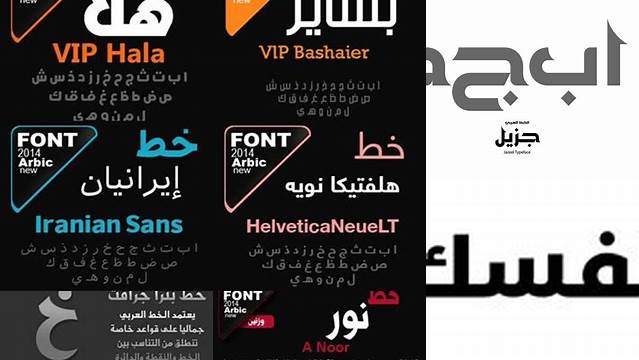
Free Arabic Bold Fonts: Download & Enhance Your Designs
Hey there, design enthusiasts! 👋 Looking for the perfect font traditional Arabic bold free download to spice up your projects? You've come to the right place! Arabic calligraphy and typography are incredibly rich and beautiful, and the right font can make your designs truly pop. In this article, we'll dive into the world of font traditional Arabic bold free download options, exploring their nuances, how to get them, and how to use them effectively. Whether you're creating stunning visuals for your business, personal projects, or just exploring your creative side, having access to quality fonts is a must. We'll cover everything from the best websites to download these fonts to practical tips on how to integrate them seamlessly into your designs. So, grab a cup of coffee, get comfy, and let's embark on this font-tastic journey together!
H2: Discovering the Beauty of Arabic Bold Fonts
Alright, let's talk about what makes font traditional Arabic bold free download so special. Arabic fonts, with their elegant curves, flowing lines, and intricate details, are a visual treat. Bold fonts, in particular, carry a certain weight and authority, making them ideal for headlines, titles, and anywhere you want to grab attention. They have a strong visual impact, making them perfect for conveying messages with confidence and clarity. The bold style ensures readability even at smaller sizes, making them versatile for both print and digital applications. Font traditional Arabic bold free download options often include various styles, from classic to modern, allowing for a wide range of creative expression. You'll find everything from fonts that mimic traditional calligraphy to those with a more contemporary feel. Choosing the right bold font can set the tone for your entire design, evoking feelings of tradition, modernity, sophistication, or even playfulness. These fonts are not just about aesthetics; they’re also about functionality. They ensure your message is conveyed effectively, especially when dealing with an audience accustomed to reading Arabic script. Selecting a suitable font traditional Arabic bold free download font is paramount for creating impactful and culturally relevant designs. Understanding the nuances of these fonts opens doors to a world of design possibilities, helping you create visuals that resonate with your audience.
Whether it’s for branding, editorial design, or social media posts, the use of bold Arabic fonts adds a layer of authenticity and cultural significance. It's like adding a touch of the Middle East's heritage into your projects. Plus, using a font traditional Arabic bold free download option helps you respect the culture and make your designs more inclusive. These bold fonts are often used in headings, logos, and prominent text elements to draw attention, whereas the use of lighter weights complements the design. The versatility of these fonts ensures that they fit seamlessly into various design contexts. The bold weight ensures that the font remains visible and legible even at smaller sizes or in busy layouts. This also helps in achieving contrast and visual hierarchy within the overall design. Overall, font traditional Arabic bold free download fonts aren’t just about aesthetics. They serve a practical role and are important in creating designs that capture attention, convey meaning, and respect cultural context.
H3: The Cultural Significance of Arabic Typography
The art of Arabic typography is deeply rooted in history and culture. Arabic script, derived from the Nabataean alphabet, has evolved over centuries, giving rise to diverse styles and calligraphic traditions. Understanding the cultural significance of font traditional Arabic bold free download is crucial. The way Arabic letters are written has always been a reflection of cultural values, religious beliefs, and artistic expression. For example, the flowing lines and graceful curves of traditional calligraphy evoke a sense of elegance and spirituality. The use of bold fonts, in this context, can represent strength, emphasis, and authority, which have deep cultural connotations. The bold style in Arabic fonts allows designers to highlight messages while respecting the aesthetic and cultural values of Arabic calligraphy. The cultural significance of font traditional Arabic bold free download goes beyond mere aesthetics. It’s about honoring a heritage. Many people believe the fonts reflect the rich history, art, and literature of the Arabic-speaking world. When you use these fonts, you are not just using a design element, you're also engaging with a centuries-old tradition that continues to evolve today. Using font traditional Arabic bold free download allows you to connect with this rich cultural background. This respect for the language and its visual representation goes a long way in showing that you value and respect its culture. Remember, your design decisions have cultural implications, and using appropriate fonts is a way to ensure that your work is both aesthetically pleasing and culturally sensitive.